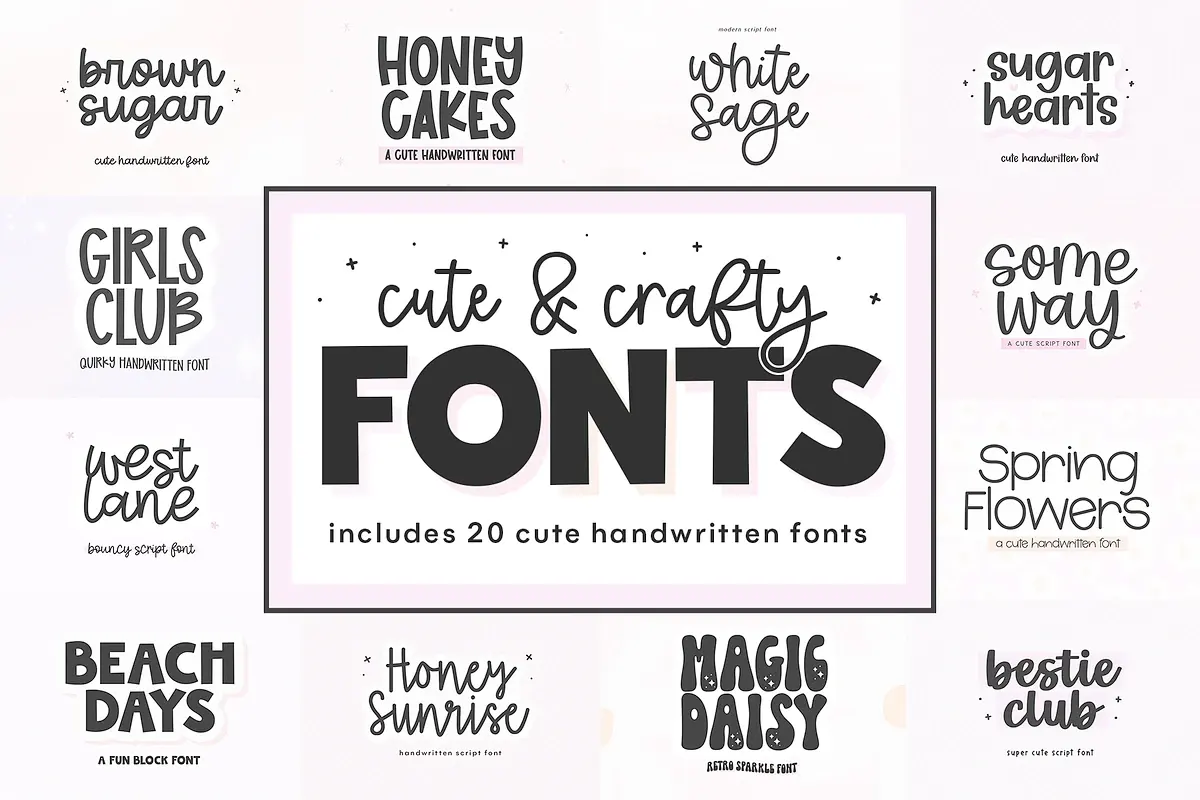
With a variety of styles included, this bundle offers everything from elegant script fonts to bold, cheerful display fonts, making it perfect for a wide range of creative projects. The fonts in this bundle include uppercase and lowercase letters, numerals, punctuation, and multilingual support, ensuring flexibility for global use.
Whether you're working on a children's brand, a fun event invitation, or a playful marketing campaign, Cute Font Bundle brings a fresh, lively touch to your typography.